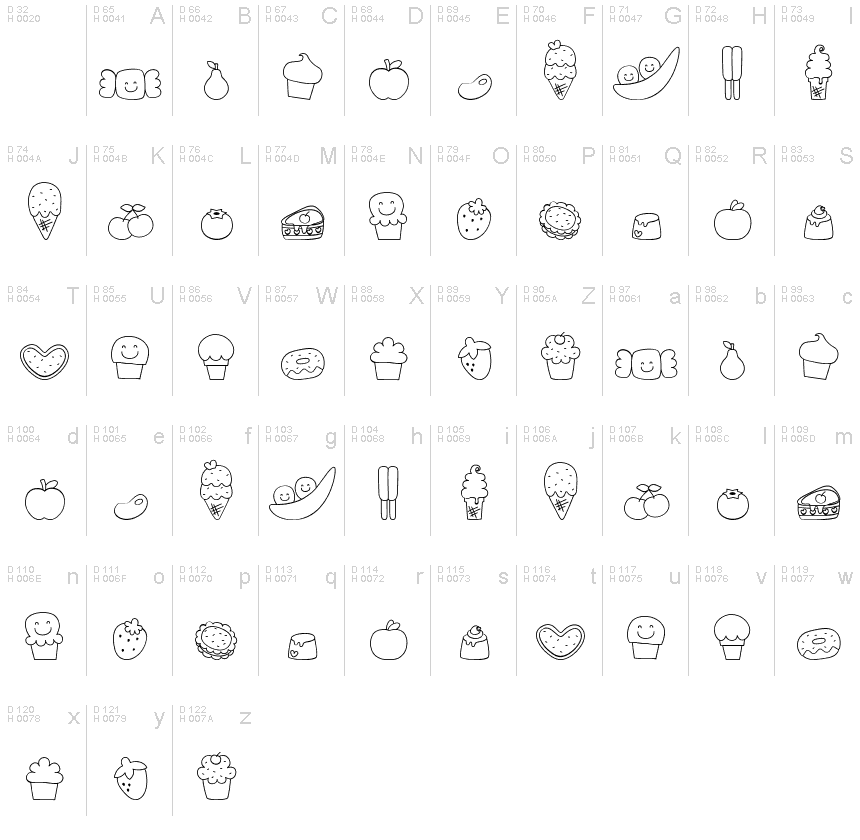
MTF Sweet Dings
MTF Sweet Dings, designed by Miss Tiina Fonts, is a delightful dingbats font that adds a playful touch to any project. With its cartoon style and a whimsical collection of candy, fruit, cakes, doughnuts, and more, this font is perfect for creating eye-catching designs. Whether you're working on children's books, party invitations, bakery logos or even social media graphics for a confectionery brand, MTF Sweet Dings will infuse your projects with sweetness and fun. Let your creativity soar as you bring these sugary icons to life with this charming font.